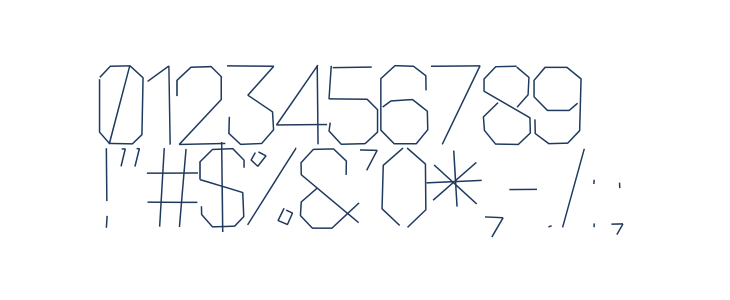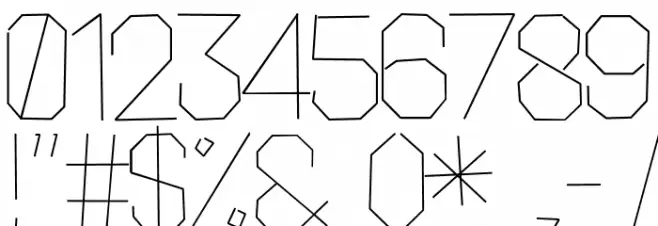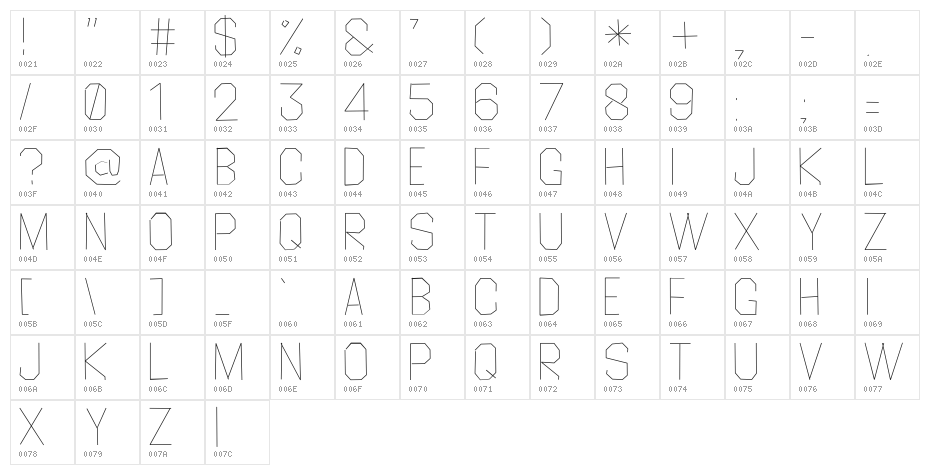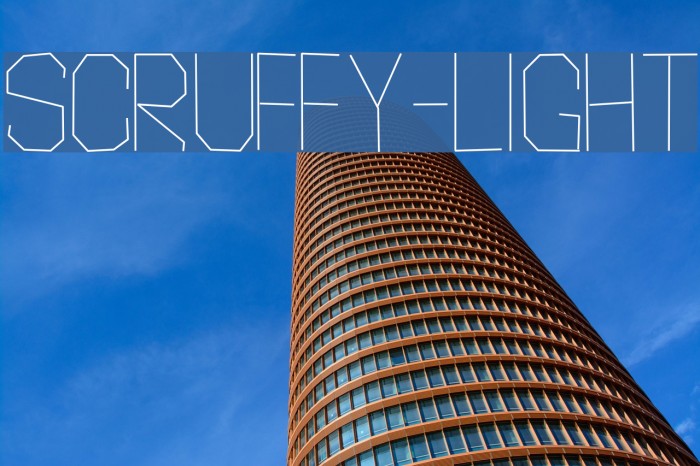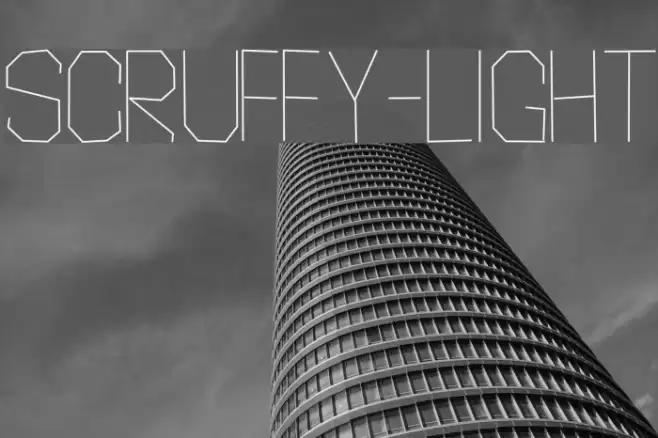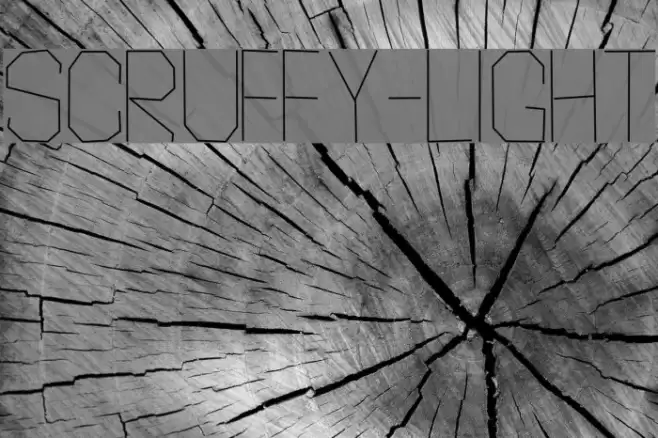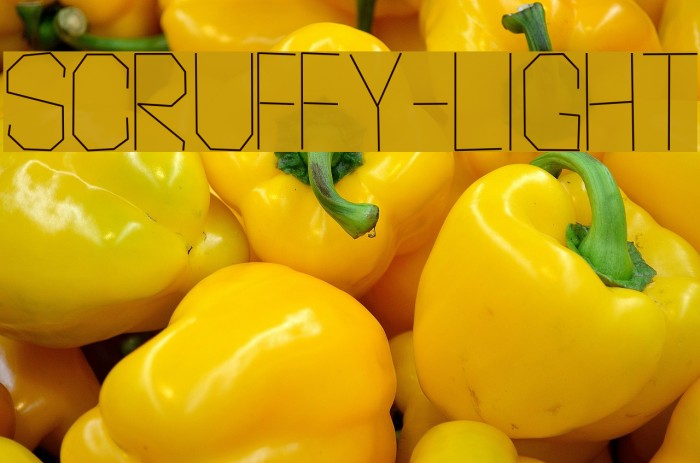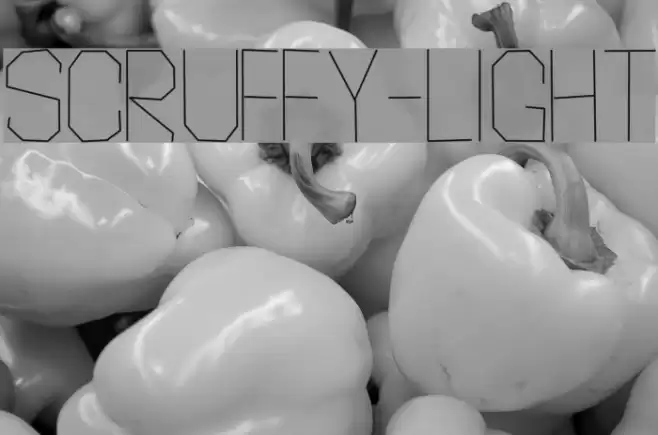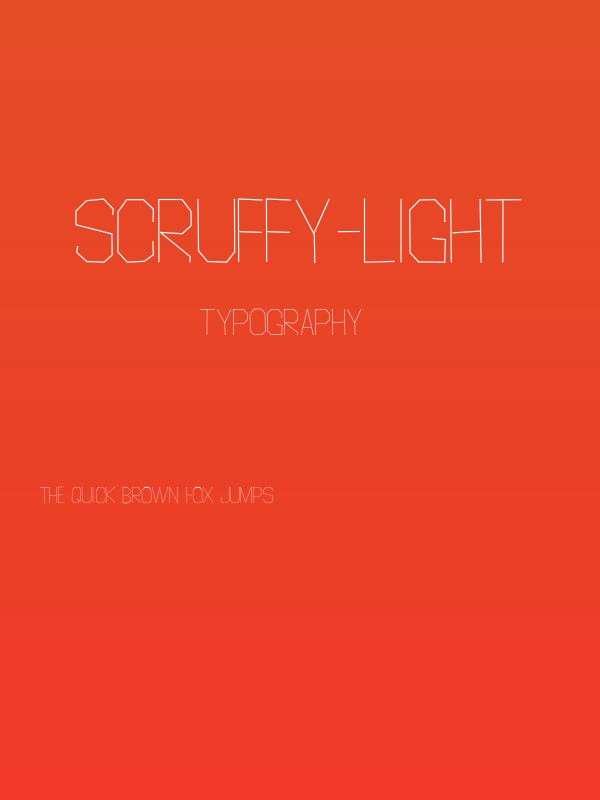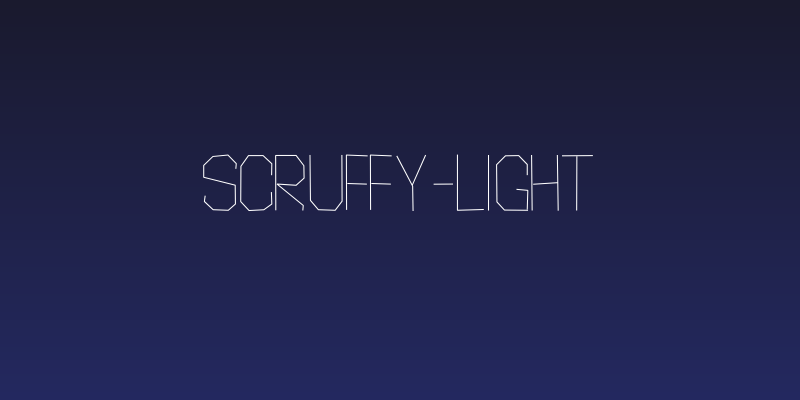
Scruffy-Light Font
Scruffy-Light Description
This font features a unique, hand-drawn style with irregular, jagged lines that give it a scruffy and playful appearance. The characters are composed of straight lines with varying angles, creating an informal and whimsical look. The uppercase and lowercase letters maintain a consistent style, with a slightly uneven baseline that adds to the casual feel. Numbers and special characters follow the same design principles, ensuring a cohesive appearance across all glyphs. The font's thin strokes and angular shapes make it stand out, offering a distinctive aesthetic that is both modern and artistic.